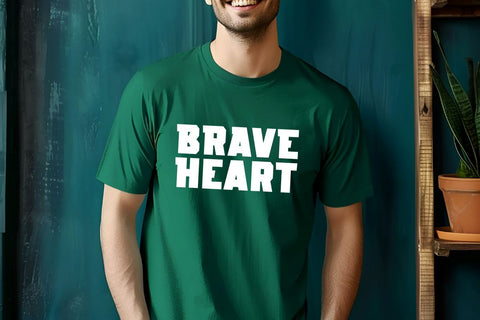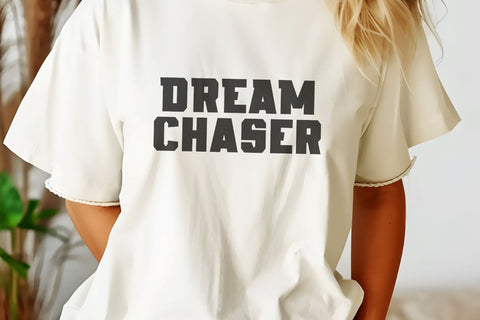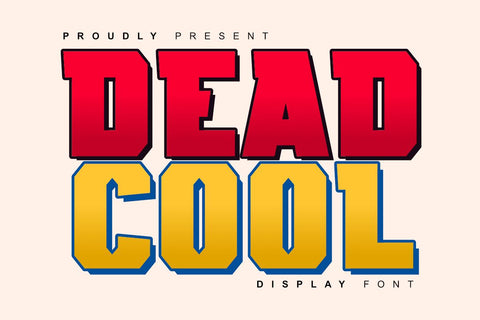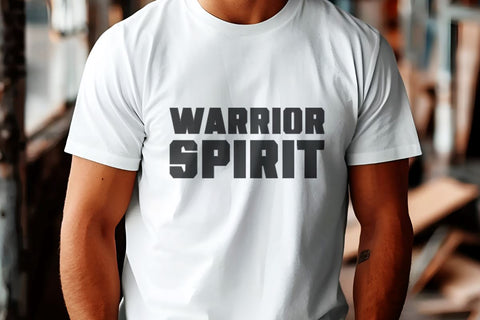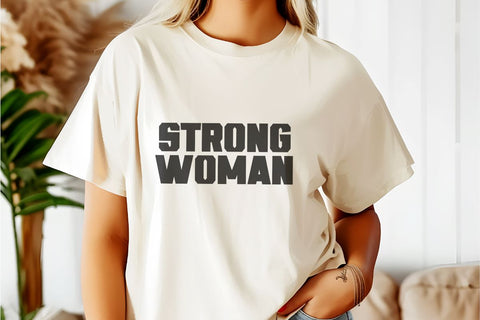
Dead Cool - Display Font
Dead Cool is a cool and bold display font. This font is inspired by action movie cover typography. This font is perfect for cover designs or labels and branding. Apart from that, this font is suitable for logos, t-shirts, hoodies, tote bags, wall art, Cricut, DIY, vinyl, posters, apparel, and many more. Apart from that, this font can also be used for advertising and social media.